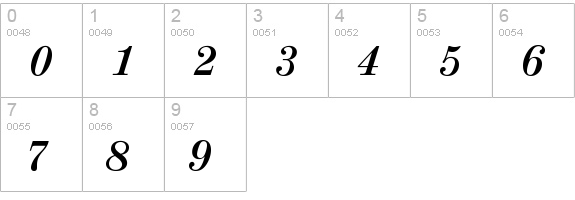
Valencia-DemiBoldIta Font Details
Valencia-DemiBoldIta font is a remarkable typeface that exudes elegance and sophistication. With its unique blend of boldness and delicate curves, this font is perfect for adding a touch of style to any design project. The distinctive characteristics of Valencia-DemiBoldIta make it stand out from the crowd. Its bold weight adds a strong presence to headlines and titles, while its italicized form adds a touch of grace and flair to body text. This font strikes the perfect balance between power and grace, making it versatile and suitable for a wide range of design applications. One of the most remarkable aspects of Valencia-DemiBoldIta is that it is available for free. FontsMarket.com, a leading online platform for font enthusiasts, offers this font as a complimentary download. This means that designers and creatives can easily access this font without any financial burden, making it an even more attractive choice. Whether you're working on a logo, branding materials, advertisements, or any other design project, Valencia-DemiBoldIta font will elevate your work to new heights. Its clean and legible letterforms ensure readability, while its unique style adds a touch of sophistication. This font is sure to make a lasting impression on your audience. In conclusion, Valencia-DemiBoldIta font is a stunning typeface that combines boldness and elegance. Its availability as a free download at FontsMarket.com makes it an excellent choice for designers and creatives who are looking to add a touch of style to their projects without breaking the bank. Enhance your designs with this exceptional font and watch as it brings your vision to life.